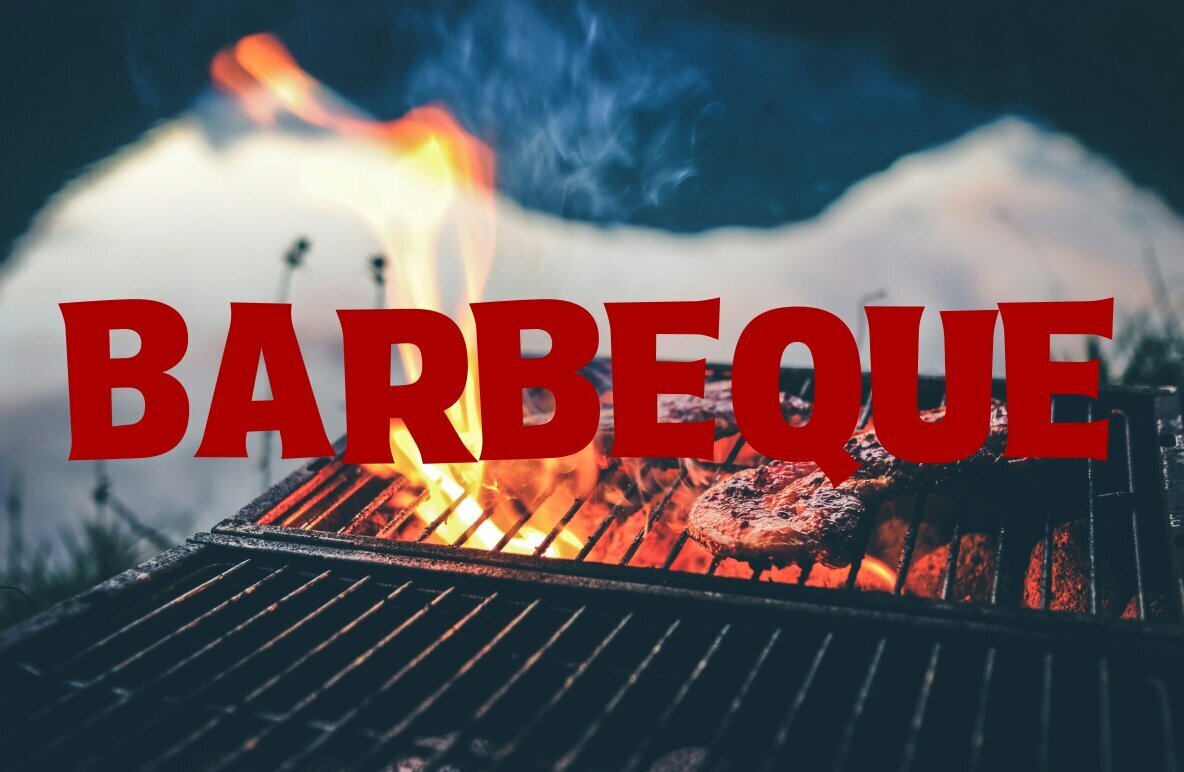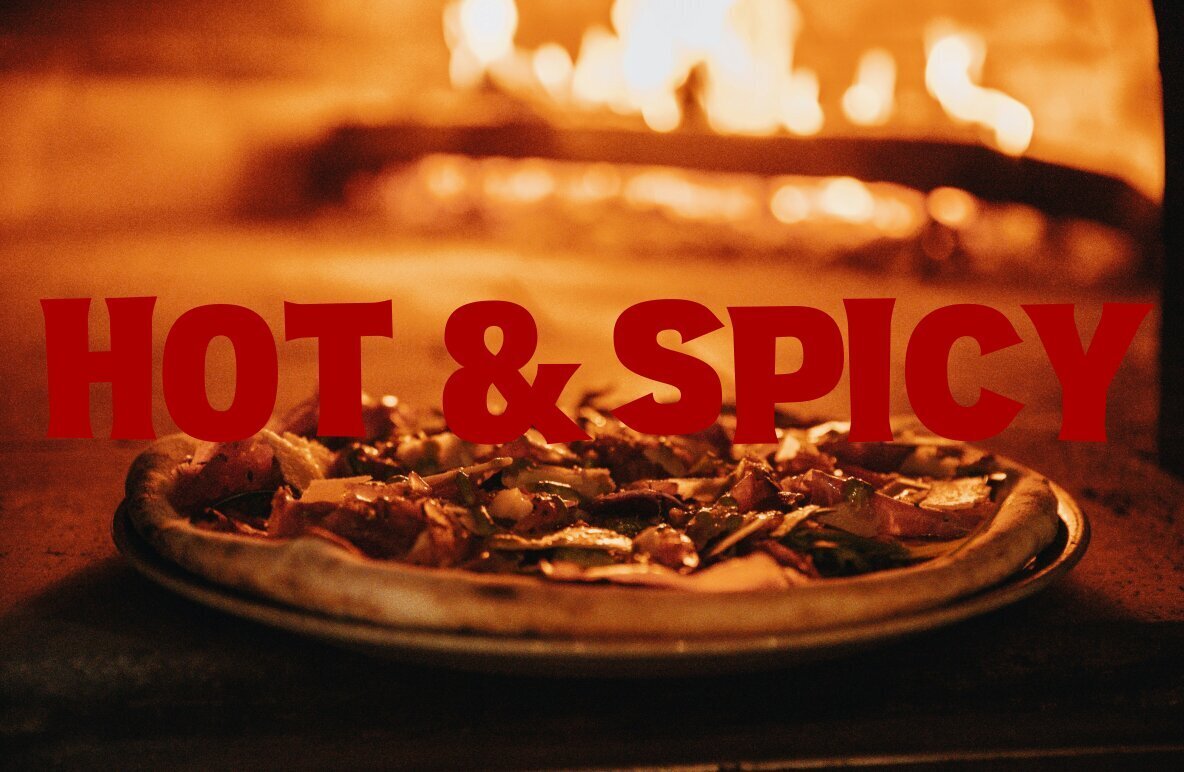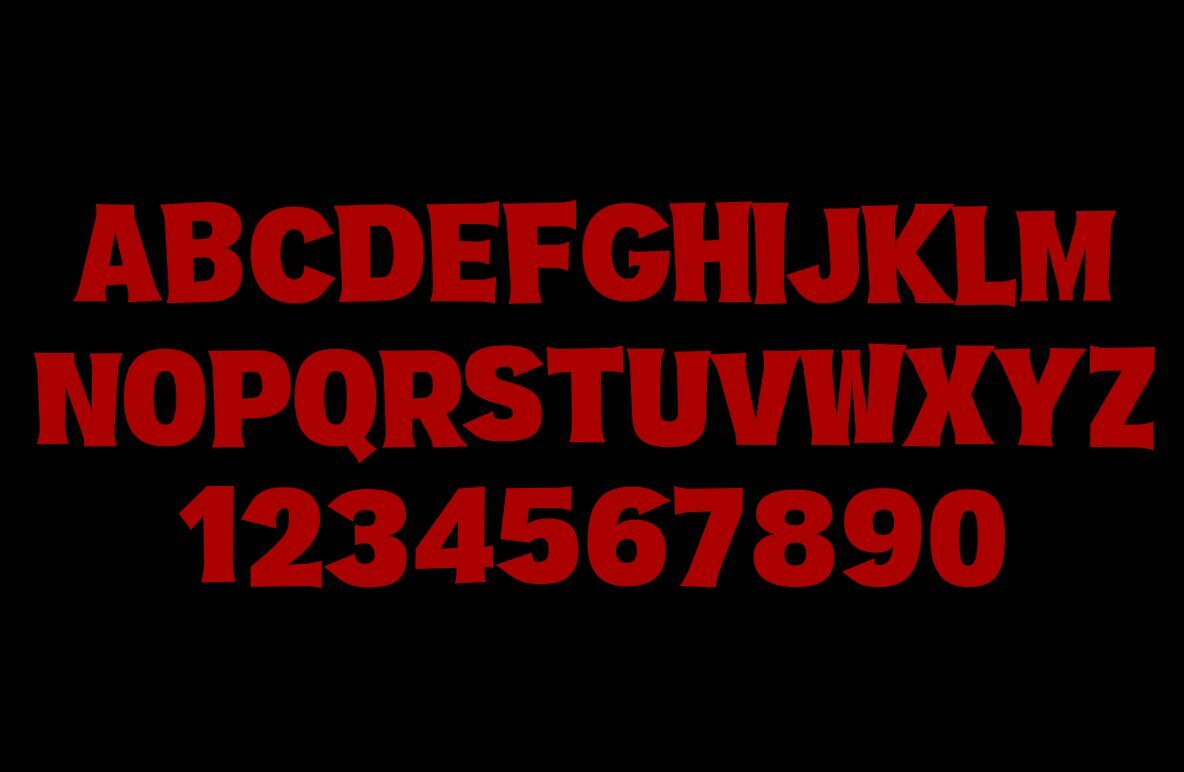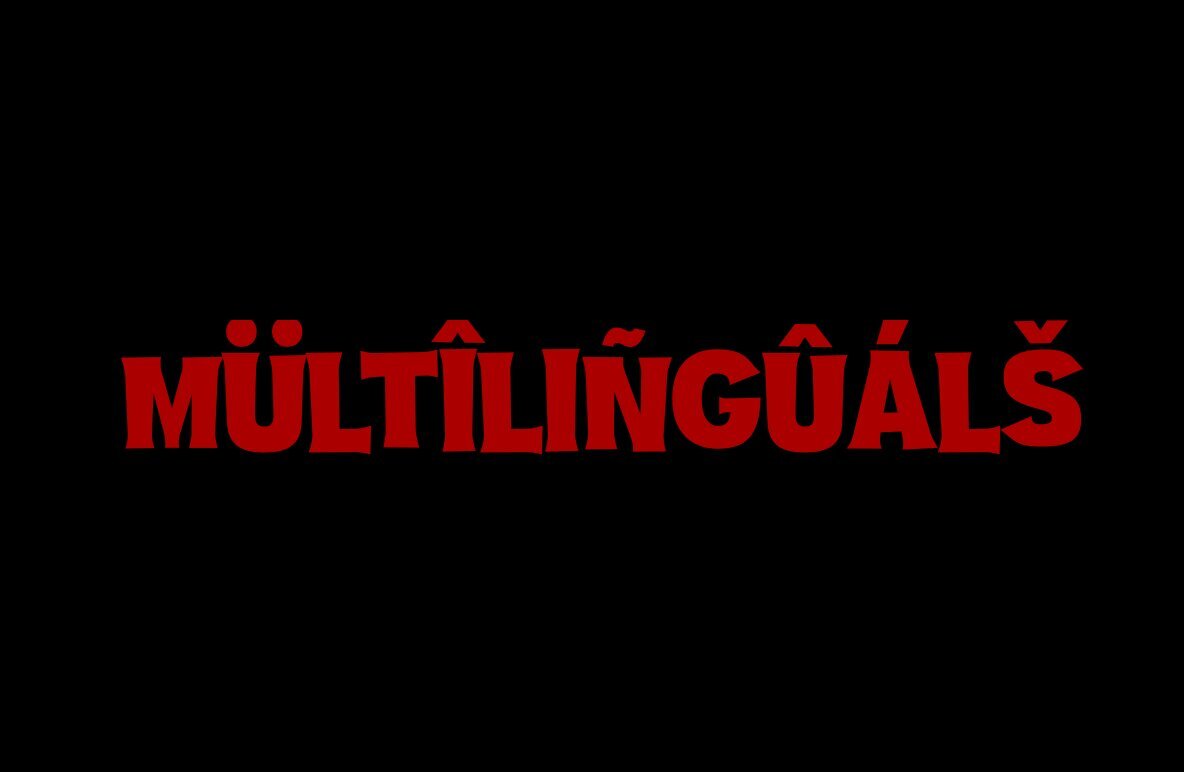
Pillars Font
Pillars font is made with a playful shape and added hooks to add to the uniqueness of this font, and high authenticity value. Suitable for use in display font applications.
Making a font I always pay attention to the quality and value of the font to create the best font. For me, fonts not only function as visual communication, but also as a form of expression that expresses the feelings that the creator of the font wants to convey. and my principle is to always prioritize quality...